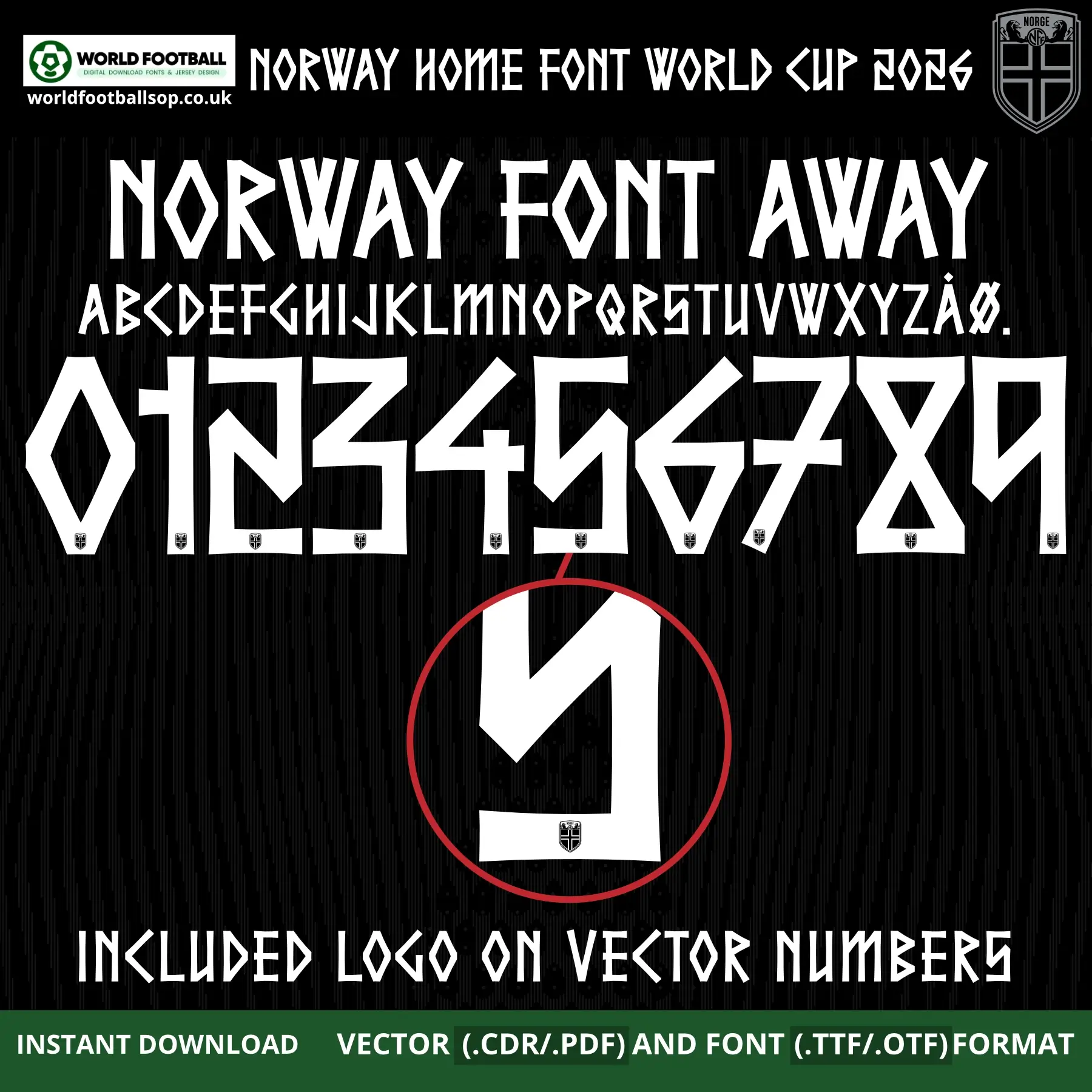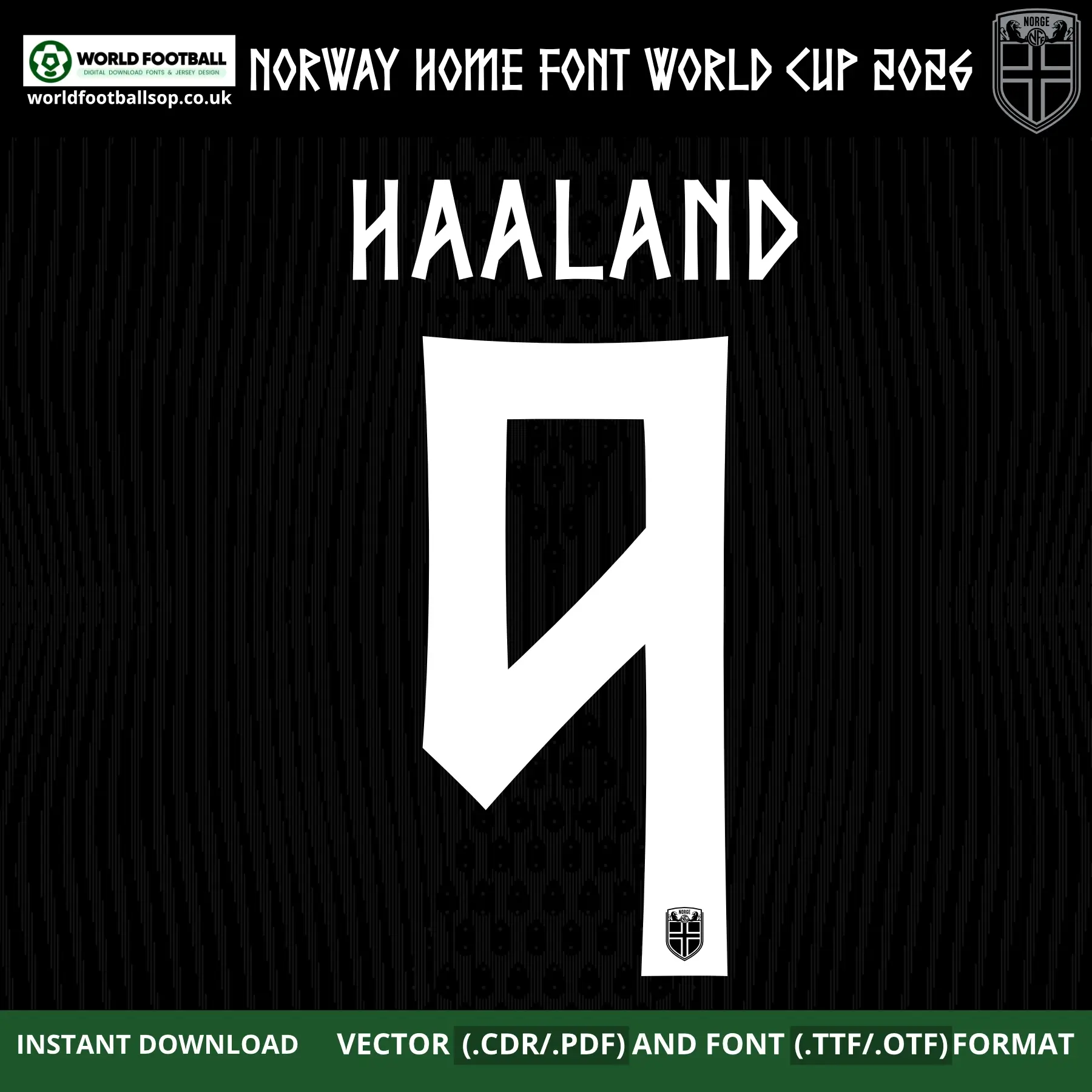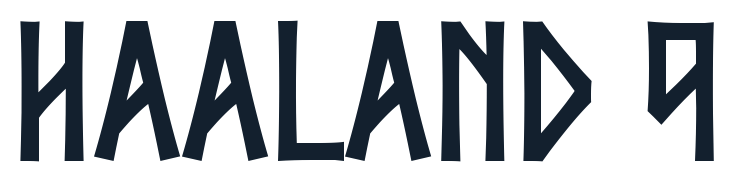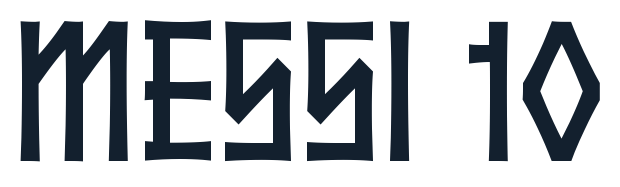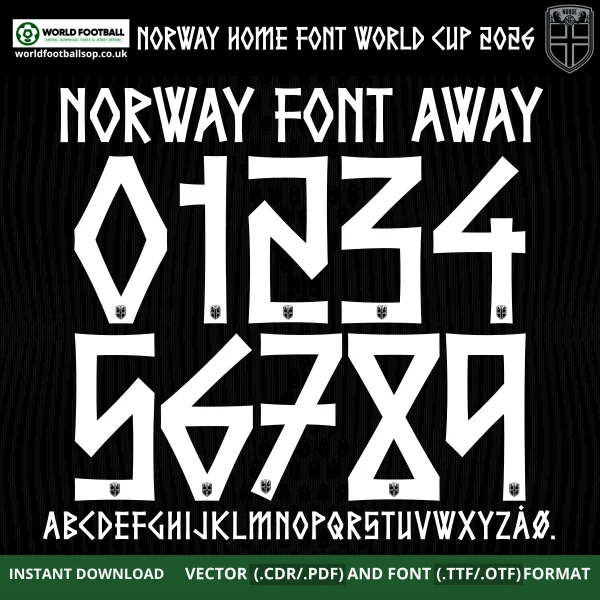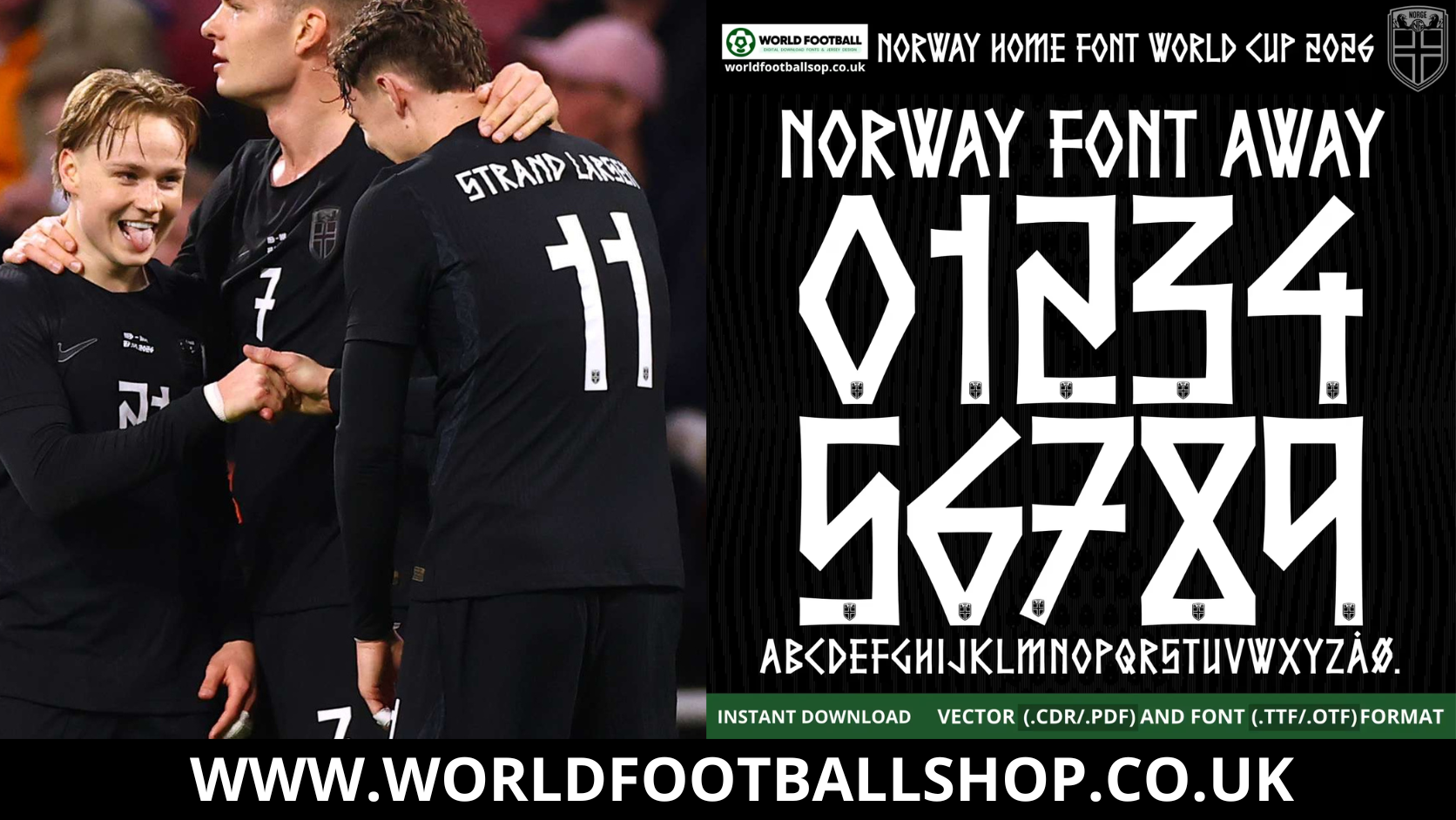
Norway Away Font World Cup 2026 - Official‑style Jersey Typography
This Norway Away Font World Cup 2026 kit recreates the bold, Norse rune-inspired lettering used on Norway's striking black away shirts for the 2026 FIFA World Cup in USA, Mexico and Canada. Designed by Nike, the font football is deeply rooted in traditional Norse runes (Elder Futhark), featuring sharp angles, straight lines and distinct geometric shapes that give it a truly unique and culturally significant identity - perfectly capturing the spirit of Norway's Nordic heritage on the pitch. It is perfect for fans, designers and printers who want authentic‑looking names and numbers on custom Norway away kits and football graphics.
The font is supplied in both desktop formats (TTF/OTF) and scalable vector files so you can work comfortably in your favourite design software. The crisp white lettering on a deep black away kit background seen in the previews mirrors Norway's official Nike away colour palette, making your mockups and prints look match‑ready. Every vector number includes the embedded NFF (Norges Fotballforbund) crest logo for maximum authenticity.
Full uppercase alphabet A-Z and numbers 0-9 with extended Nordic accents (Å, Ø)
Preview layouts showing complete number set and example name/number combo - HAALAND 9
World Cup accuracy: Inspired by the exclusive Norway Away Font World Cup 2026, not a generic typeface
High legibility: Bold, angular Elder Futhark rune forms keep numbers clear on both TV and print designs while maintaining Norway's unique away identity
Whether you are designing a full squad of custom Norway away shirts or a single fan jersey with your own name and number, this Norway Away Font World Cup 2026 gives your project a professional, on‑pitch look.